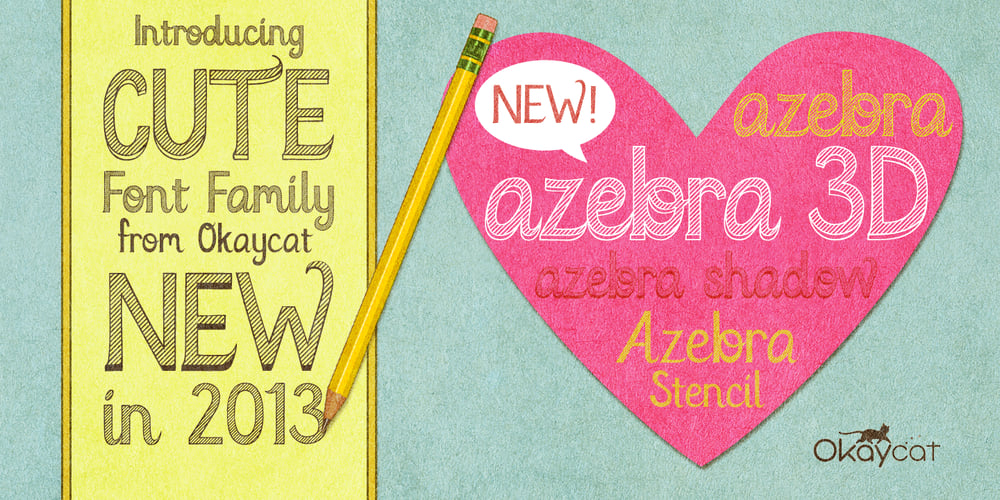
Azebra Font Family was designed by Natsuko Hayashida and published by Okaycat. Azebra contains 4 styles and family package options. Azebra is an elegant connected letter cursive script arriving with a family of detailed & artistic styles. Azebra features diagonal hatched texture, in extruded & shadow variations. Azebra is extended, containing West European diacritics & ligatures, making it suitable for multilingual environments & publications.